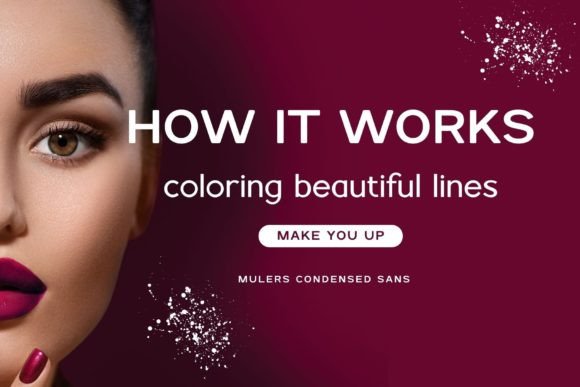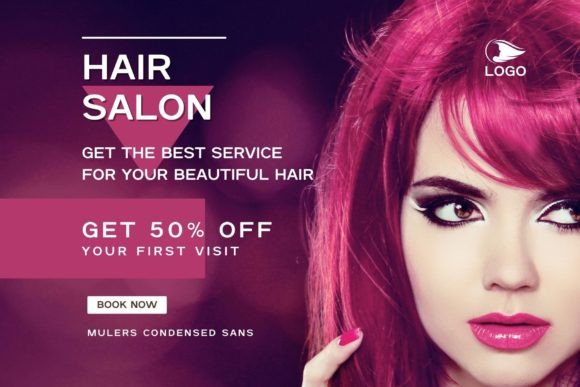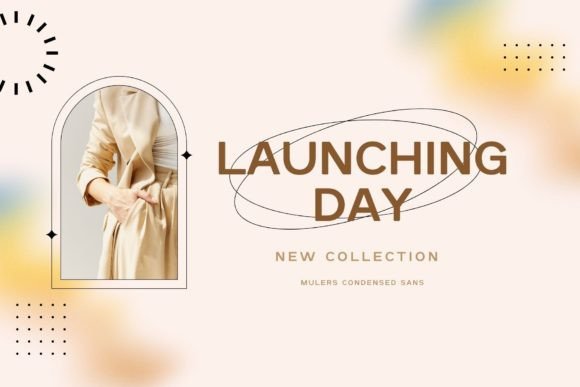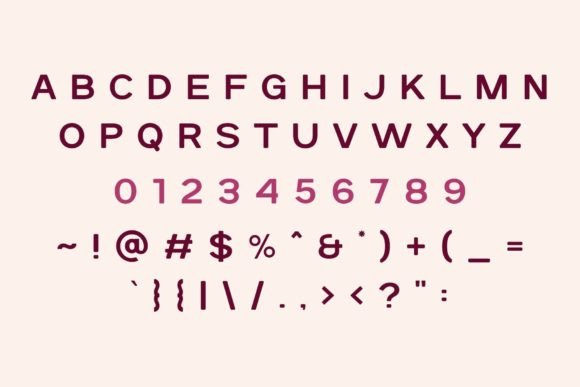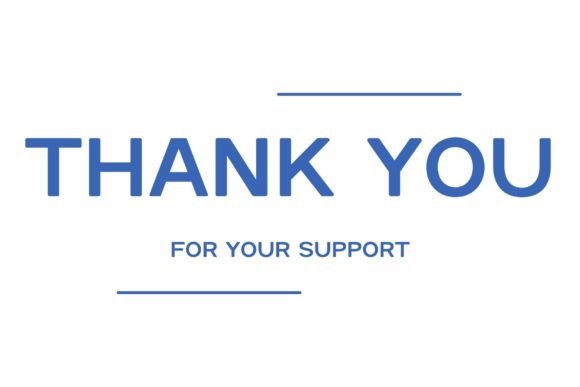
Introduction to Mulers Font
Introducing “Mulers,” a sleek and modern sans serif font that epitomizes simplicity and sophistication.
With clean lines and a contemporary aesthetic, Mulers is the ideal choice for projects that demand a minimalist and professional look Perfect for branding, editorial design, and digital applications, Mulers brings a touch of elegance to your typography.
Key Features of Mulers Font
Why Choose Mulers Font?
Mulers Font offers exceptional quality and versatility, making it a valuable addition to your design toolkit. Whether you’re creating for personal projects or commercial use, Mulers Font delivers professional results.